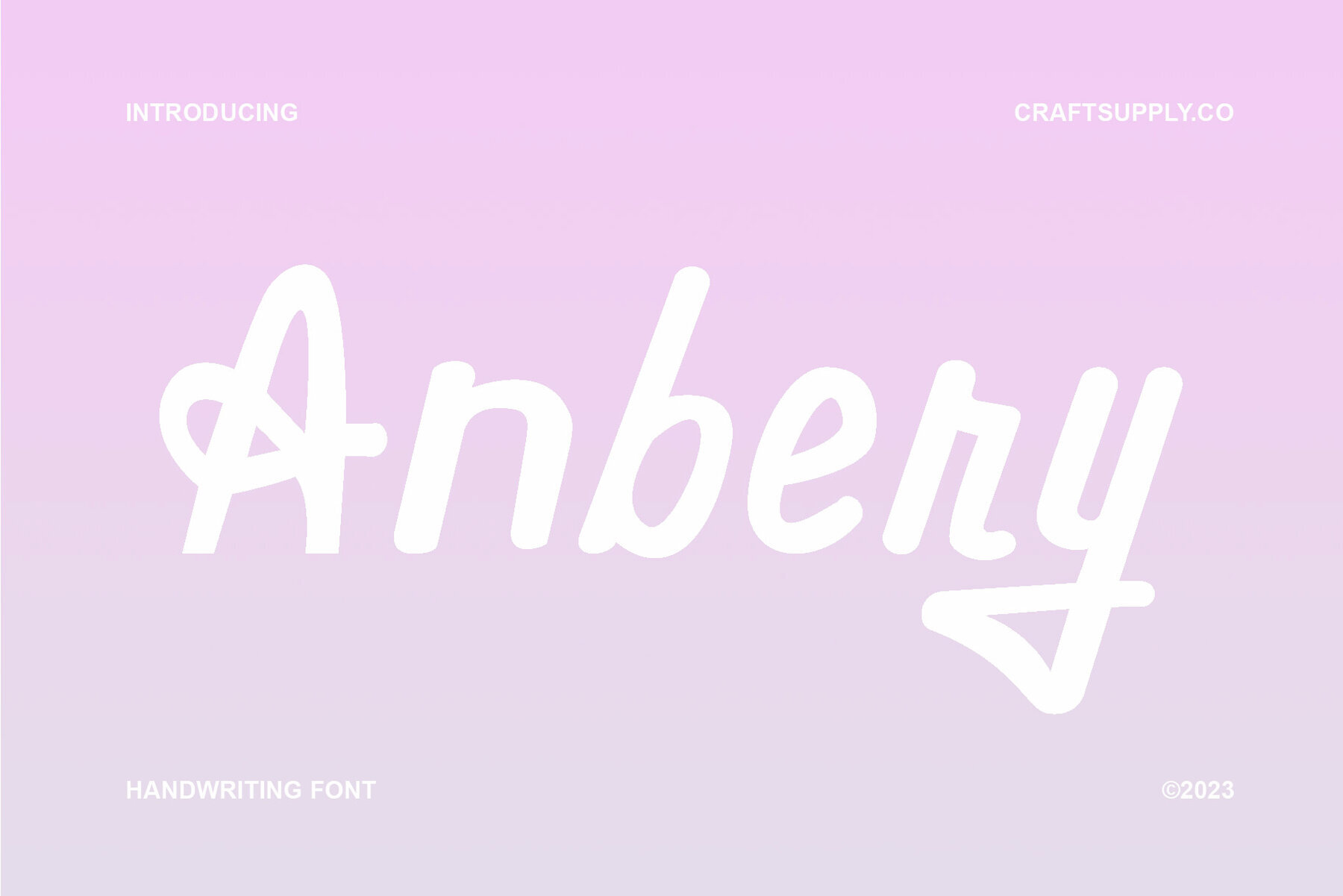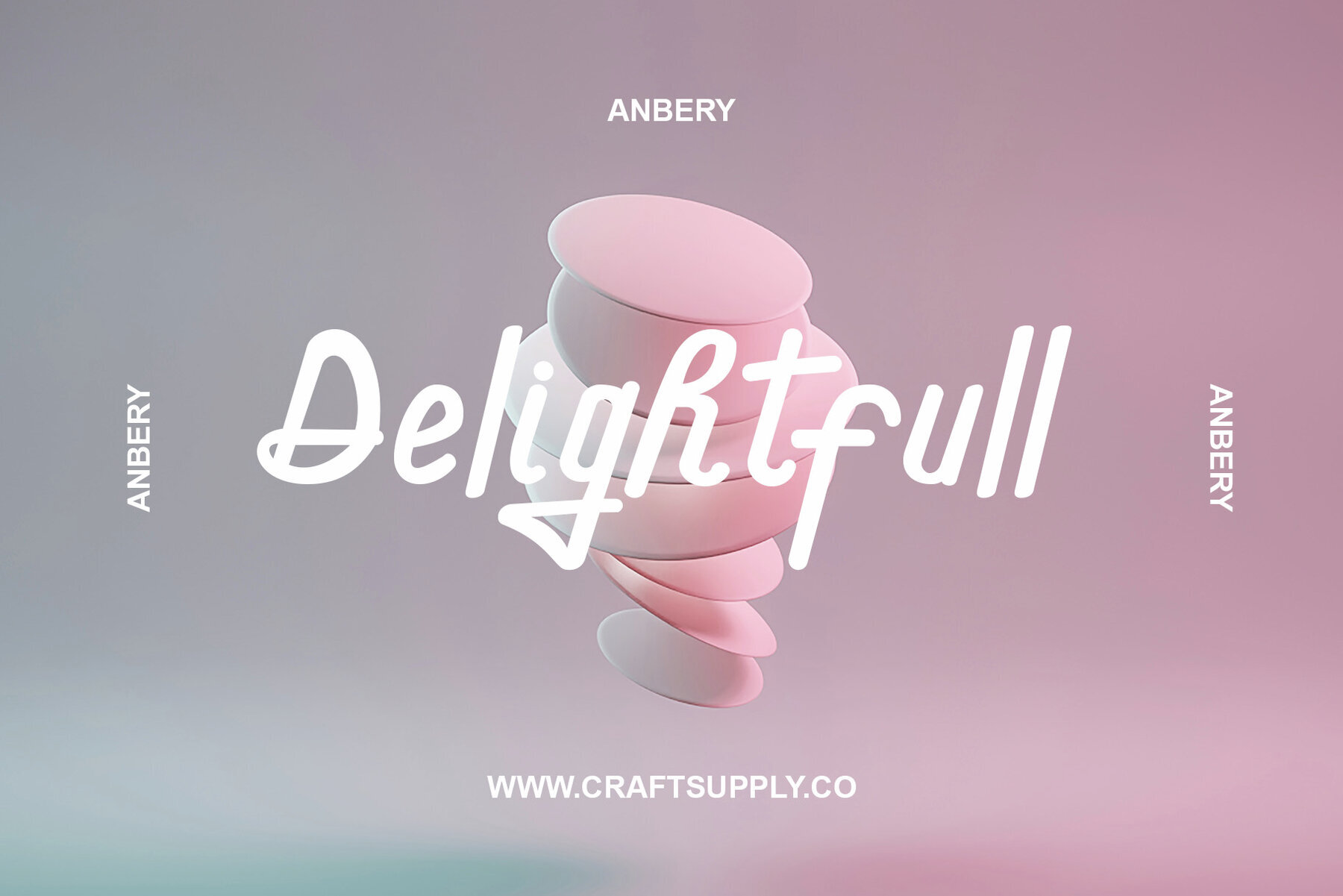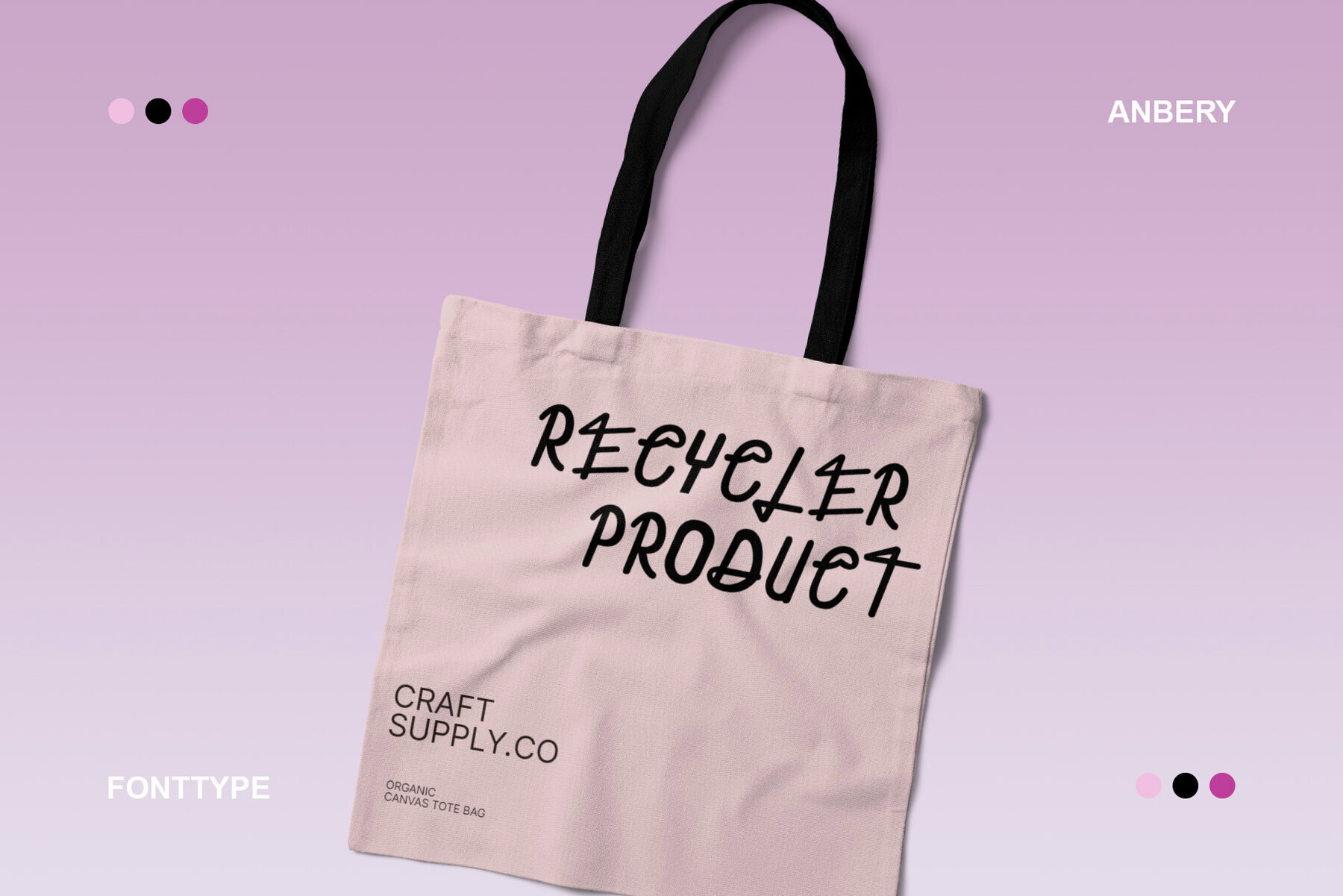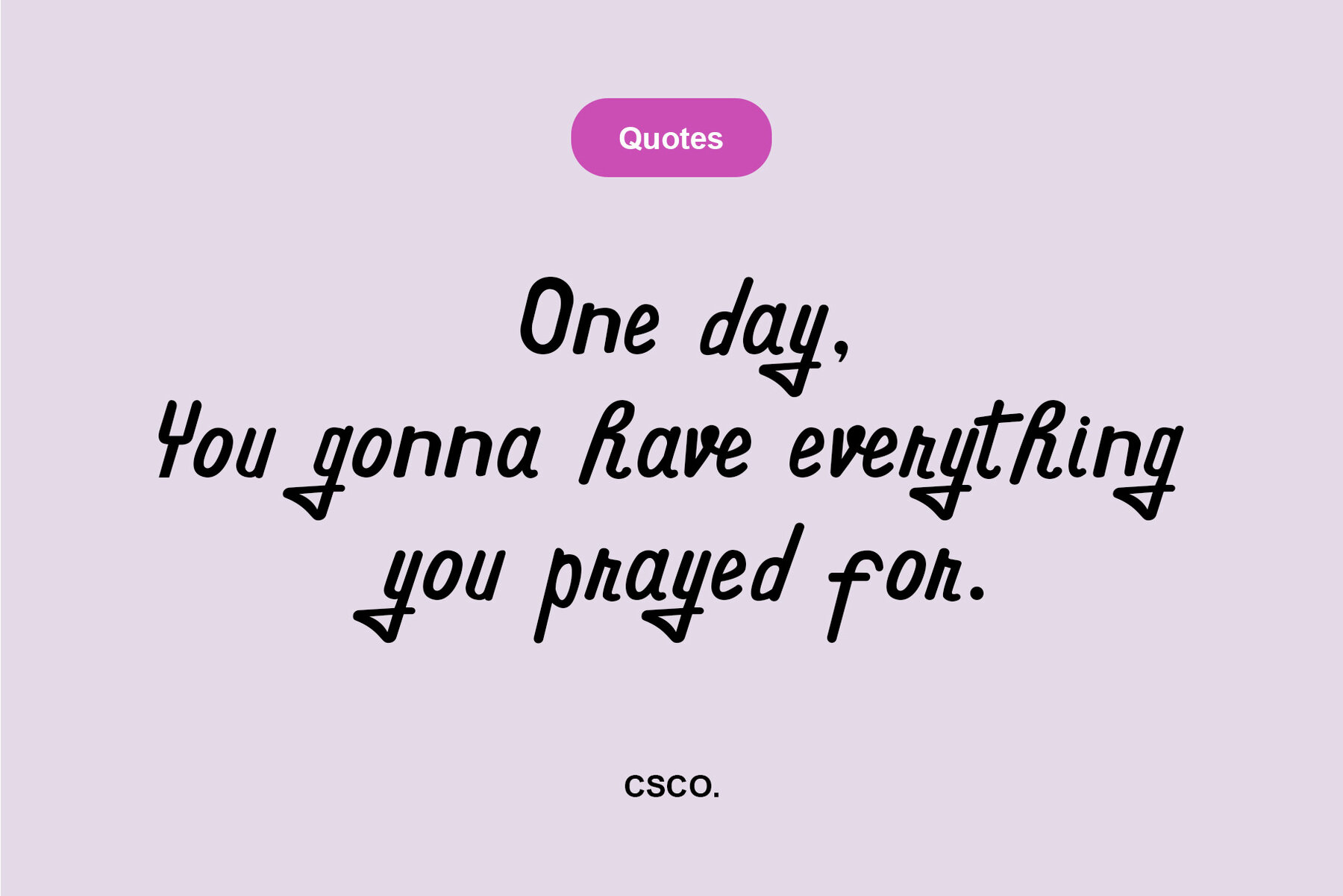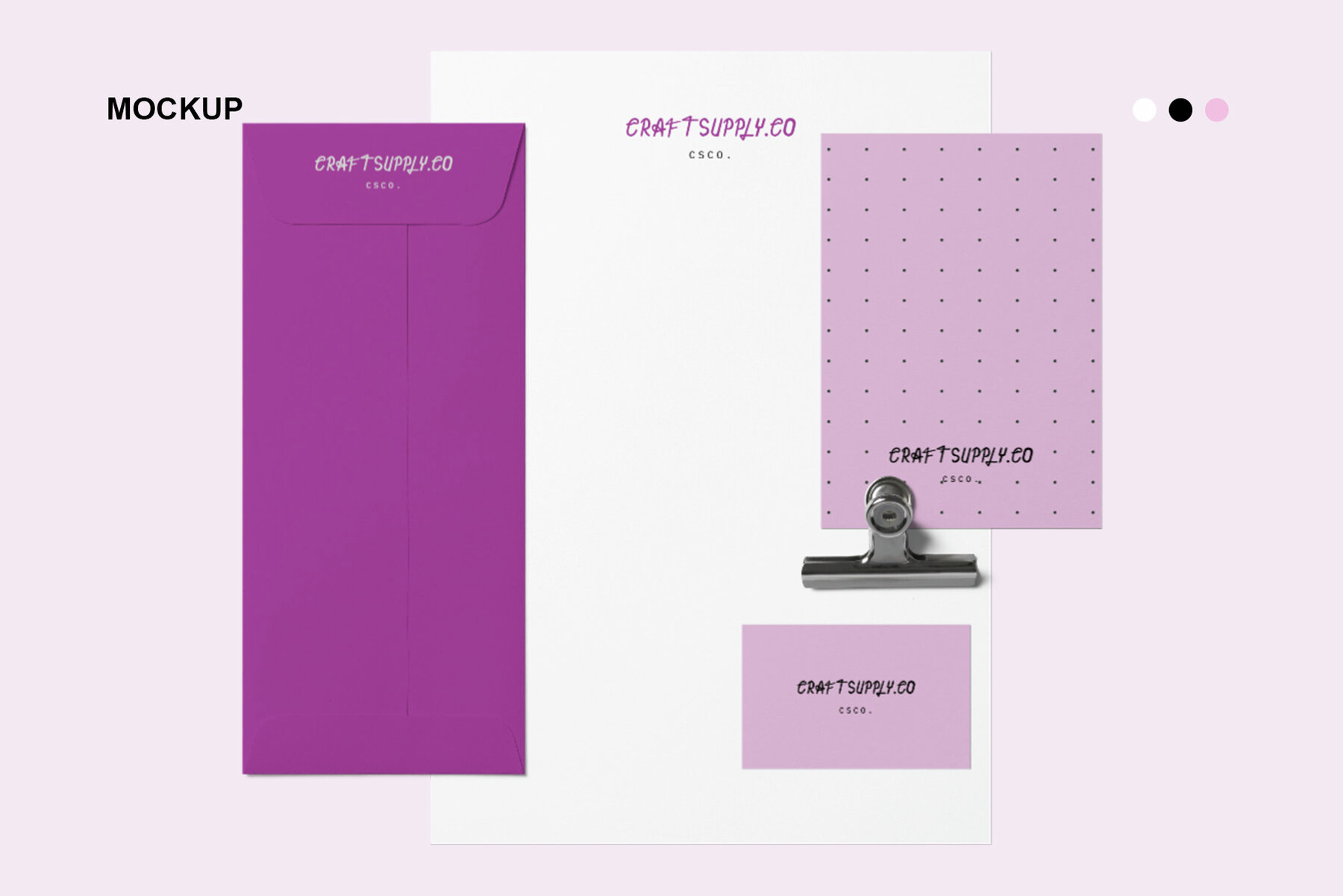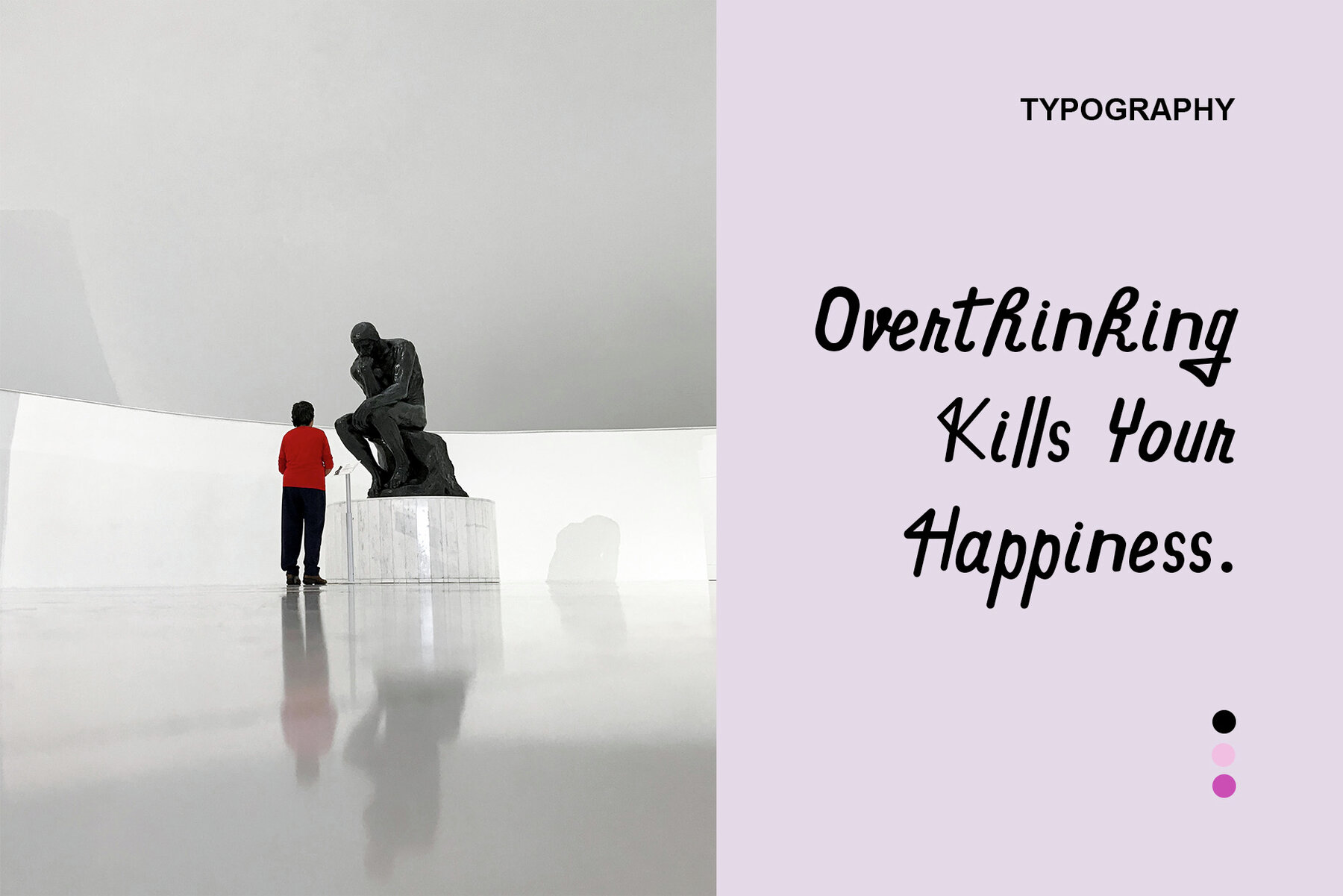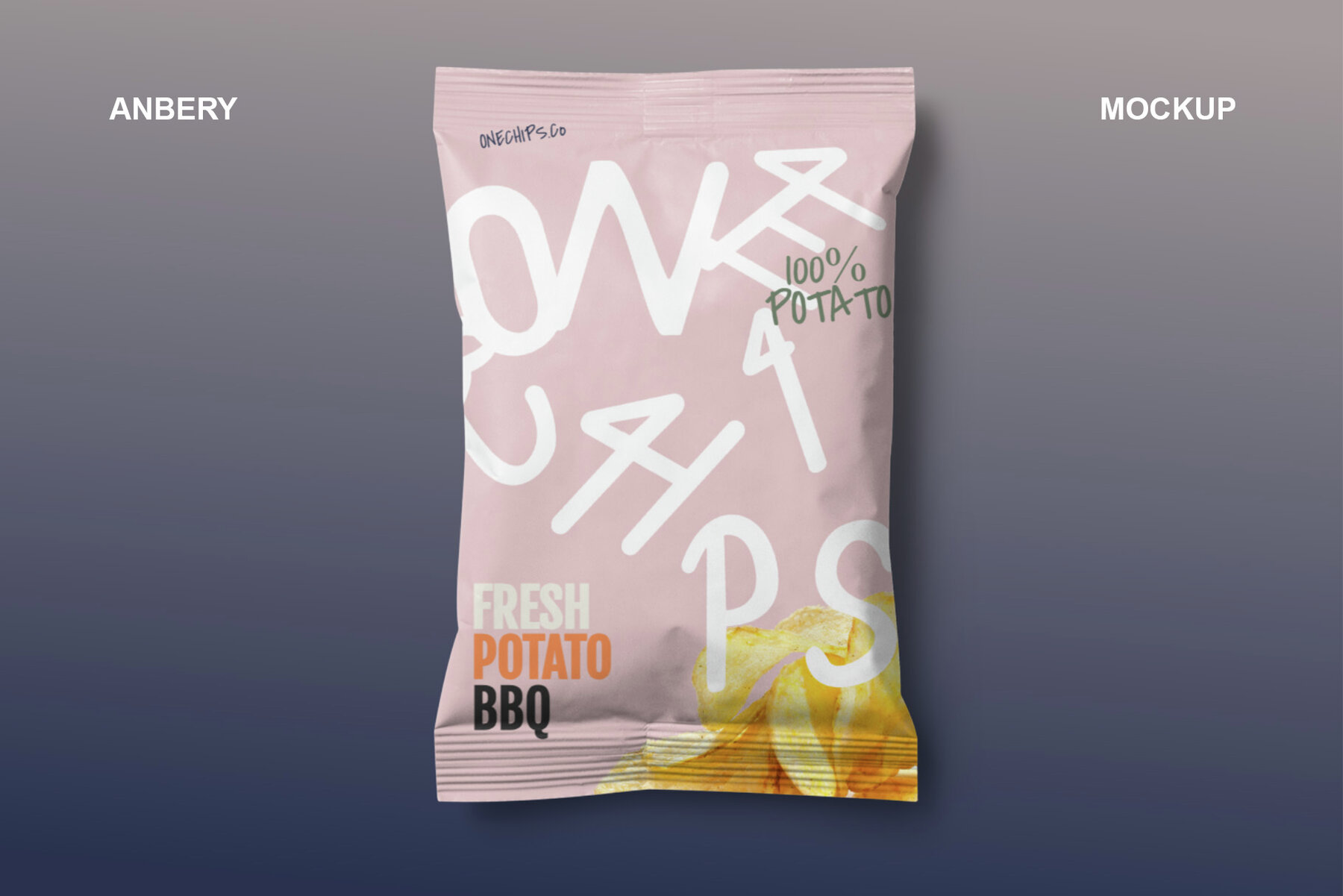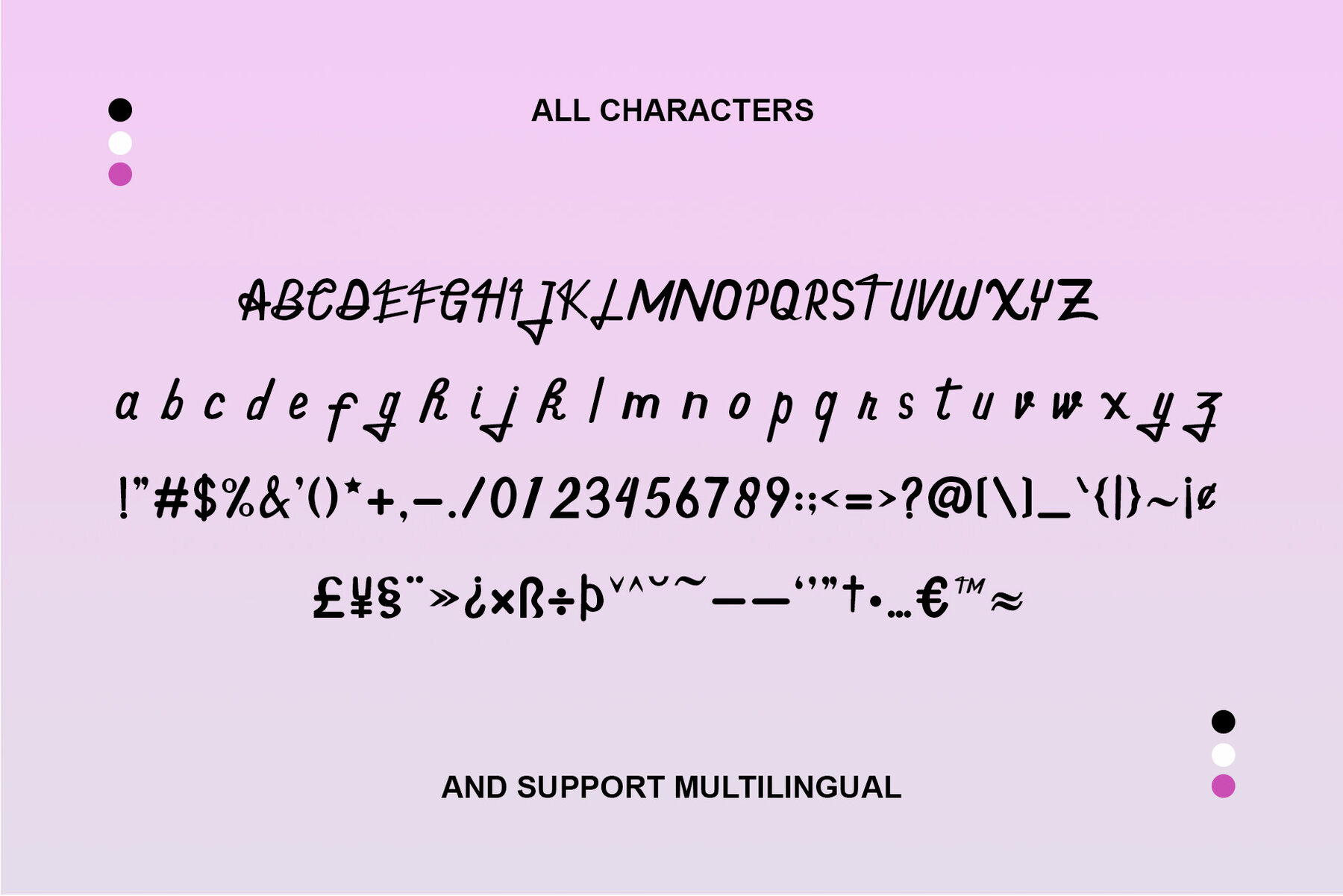
Anbery Font
Anbery Regular
Anbery – Handwriting Font is a playful script typeface that exudes a carefree and fun-loving vibe, perfect for adding a touch of whimsy to your display designs. With its charming, handwritten style, Anbery captures the essence of spontaneity and creativity, making it an ideal choice for projects that aim to convey a sense of playfulness and joy. Whether you’re designing greeting cards, posters, or any project that needs a dose of fun, Anbery adds a unique and charismatic flair. Its flowing strokes and playful letterforms bring a sense of individuality and lightheartedness to your designs. Anbery is like a cheerful giggle in the world of typography, making it an excellent choice for projects that want to infuse a delightful and fun-loving spirit into their visual communication.